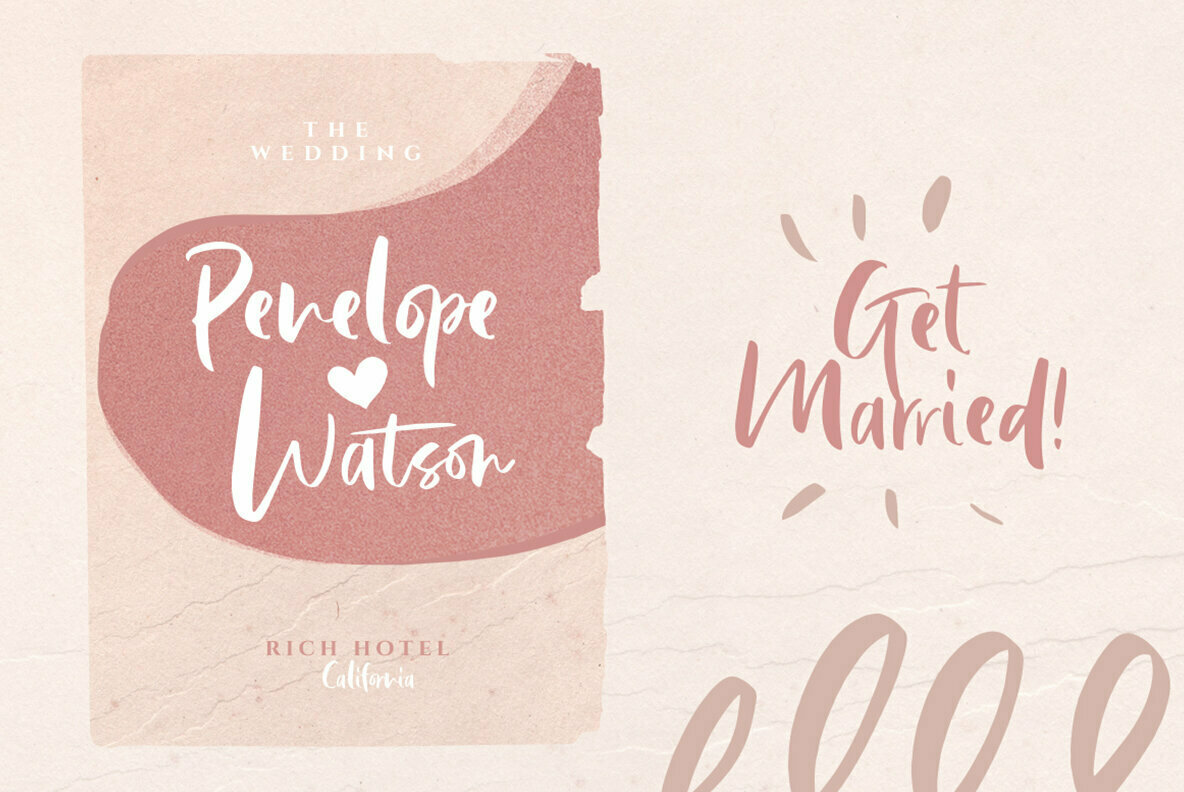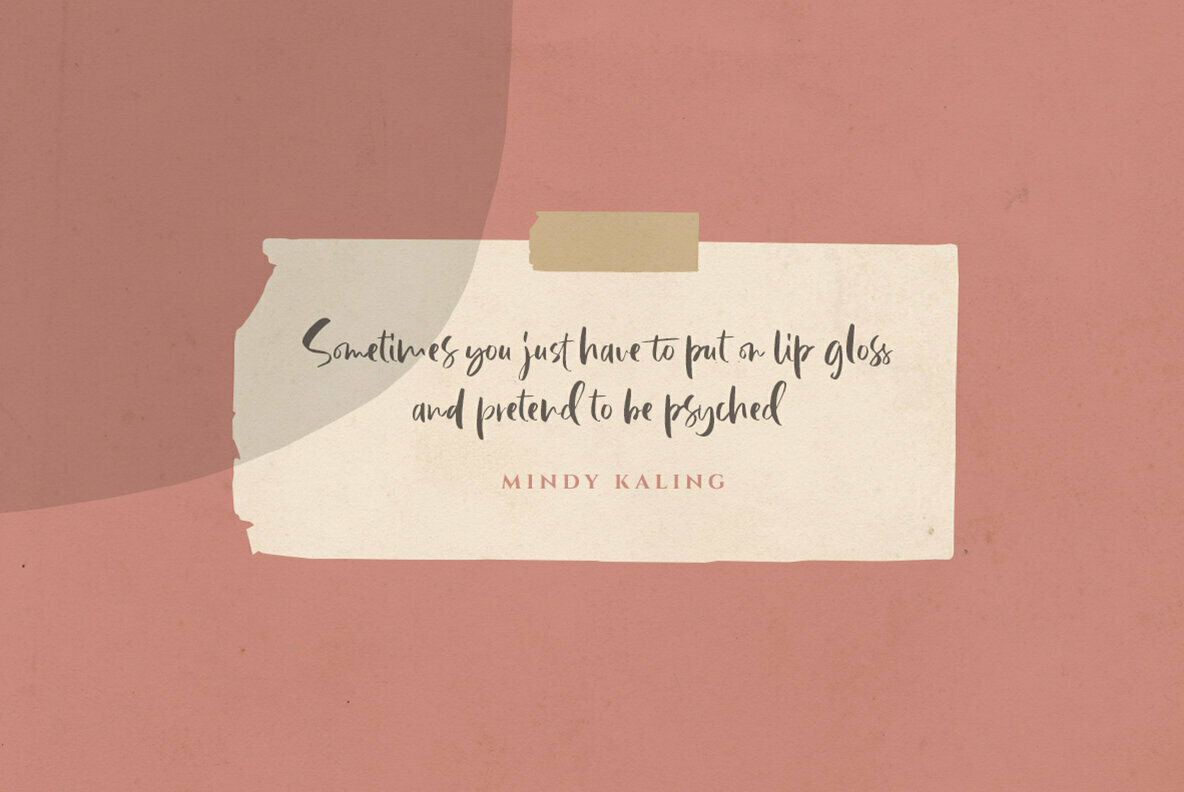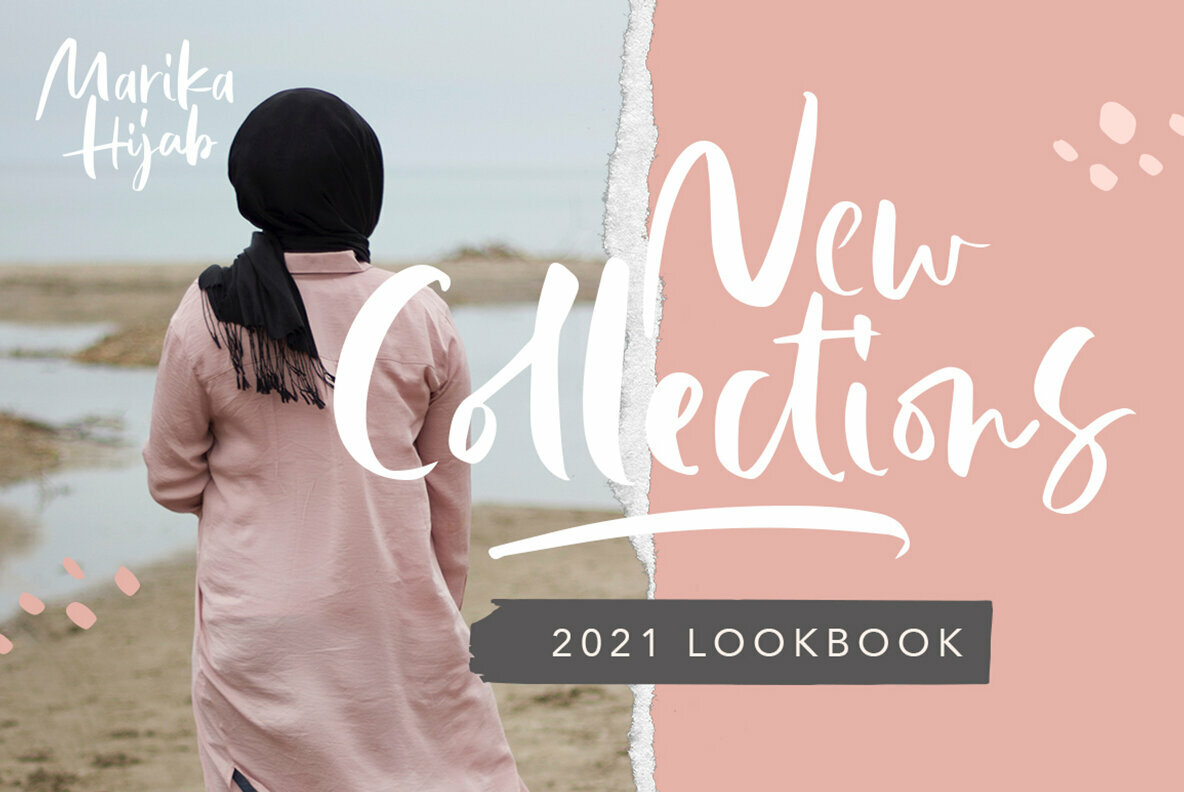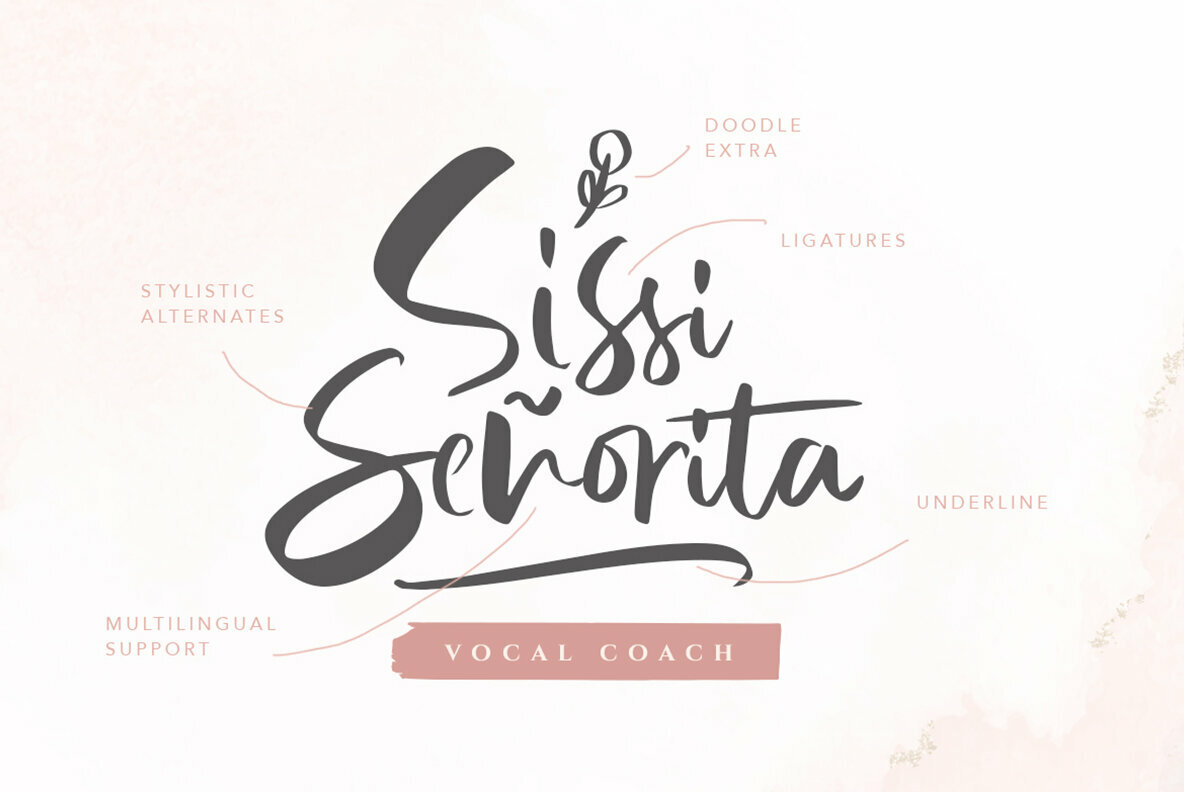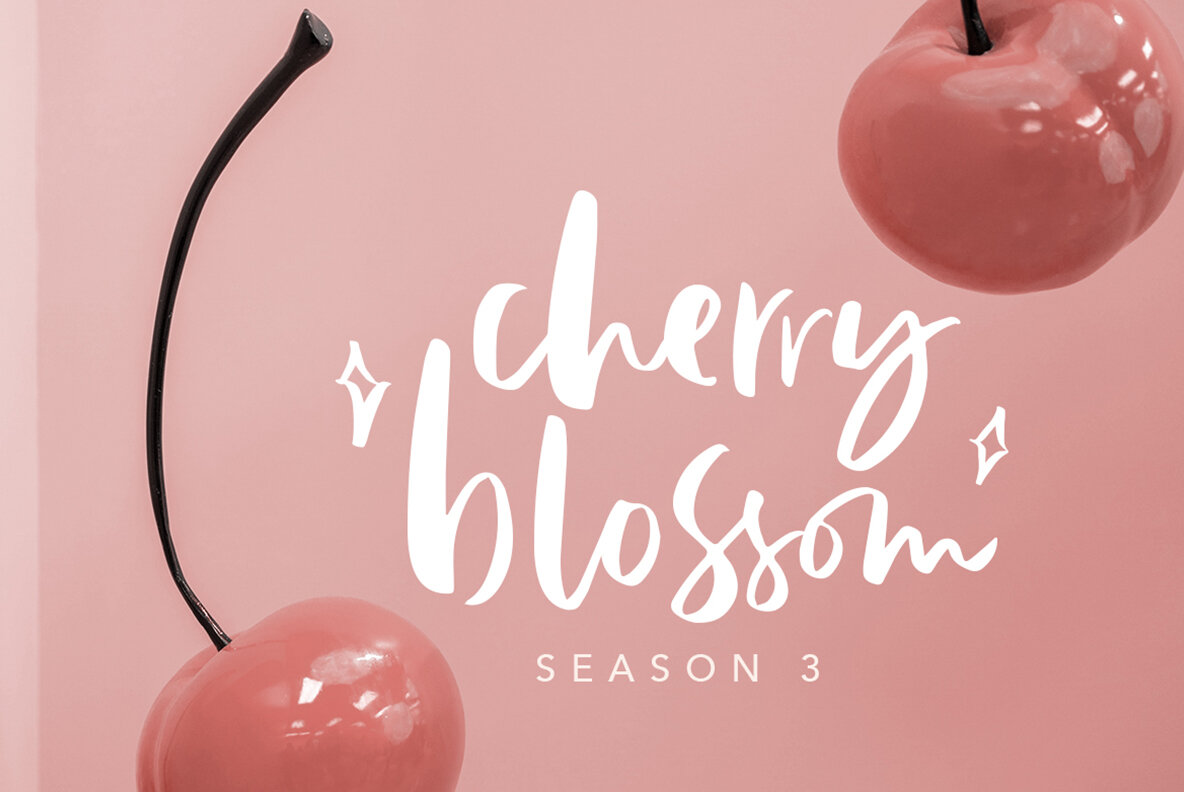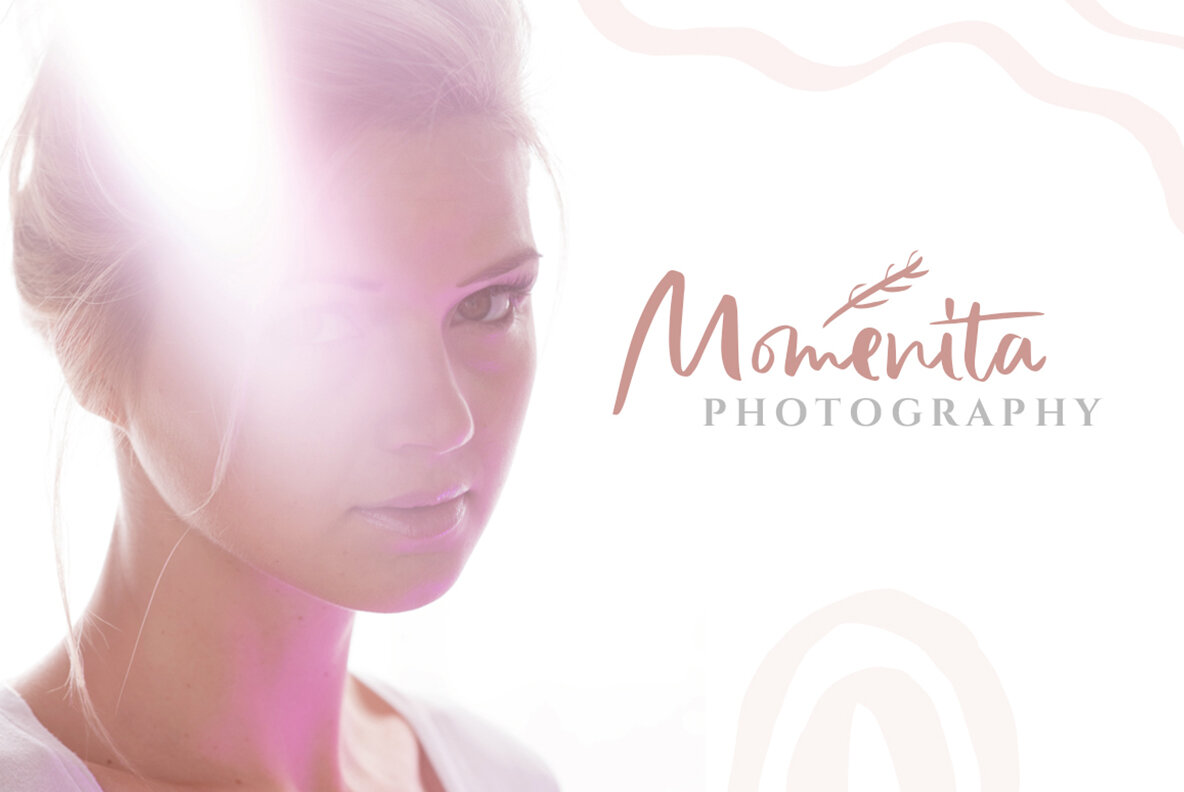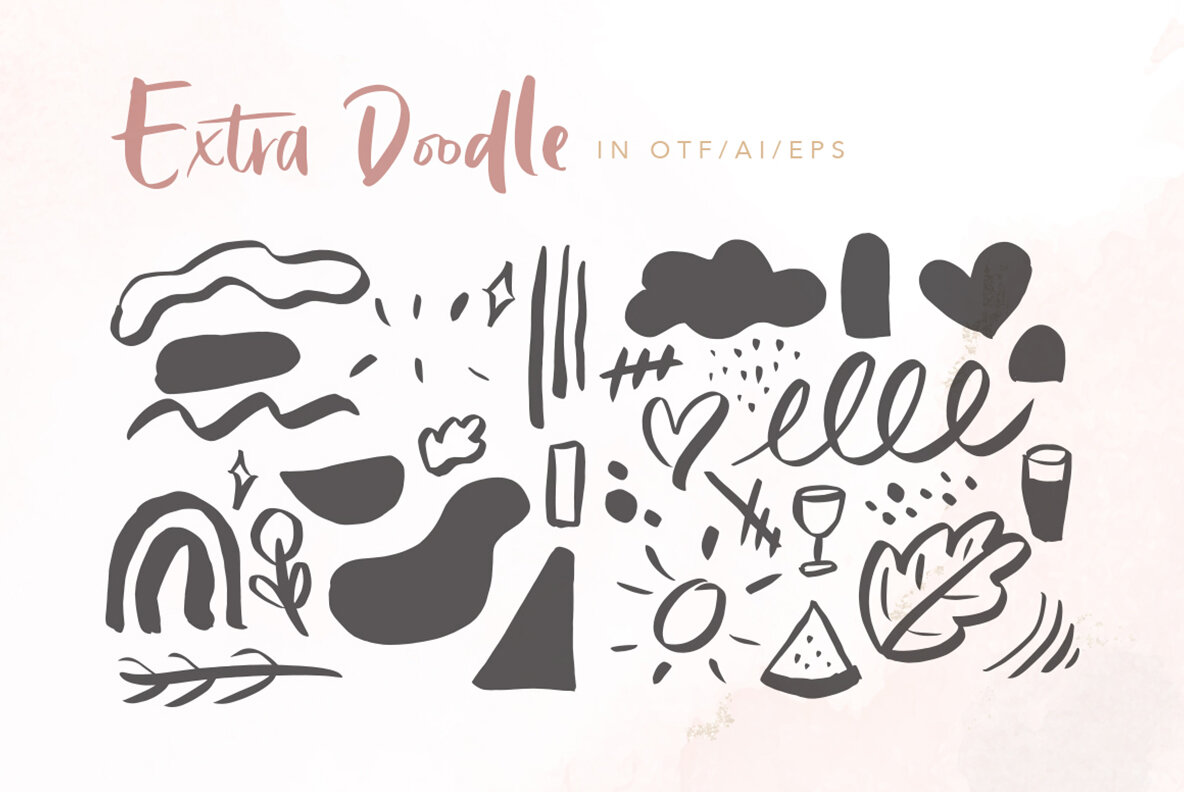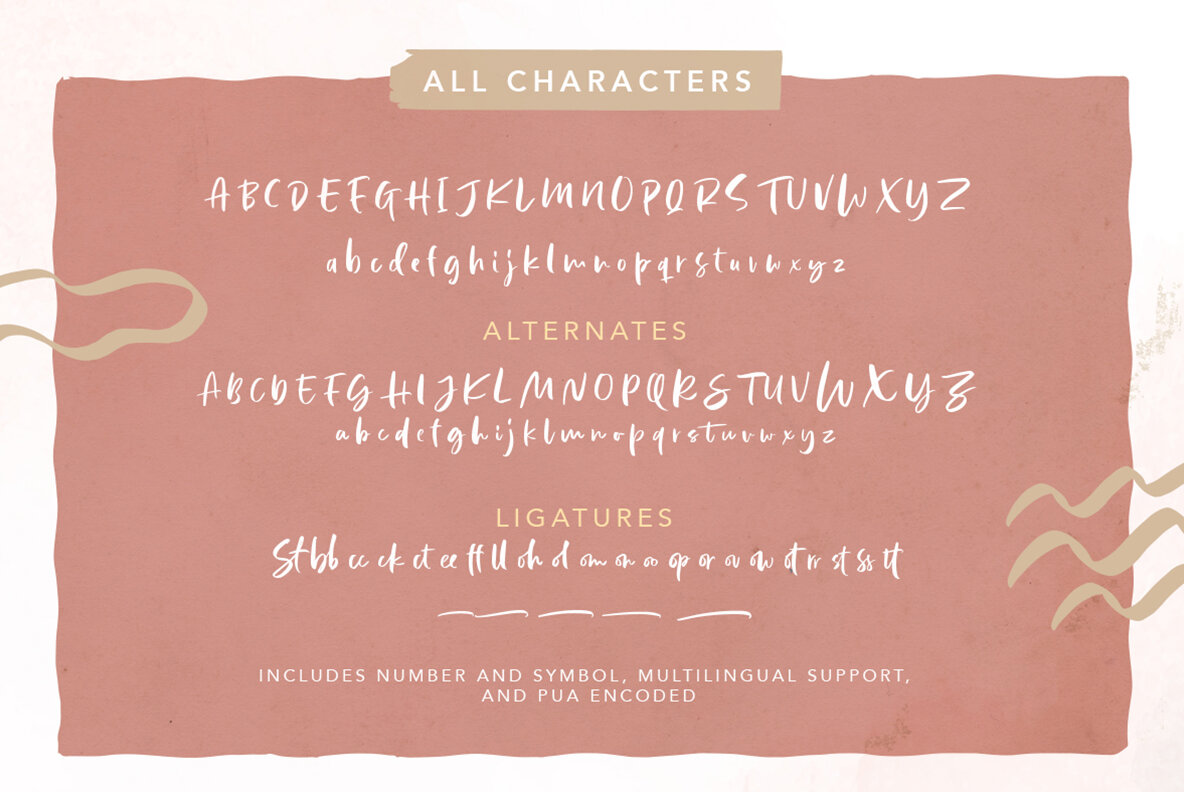
Lindsay Brown Font
Lindsay Brown Script is a script that contain lowercase, uppercase, symbol, and also support multi language. This font also contain an alternates in each characters. There's a lot ligatures in this font. Lindsay Brown Script is a font that you can use to make a logo for branding, beautiful fashion design, suitable for wedding invitation, or handwritten quote. Not only that, this font also contain EXTRA DOODLE in font and vector format!